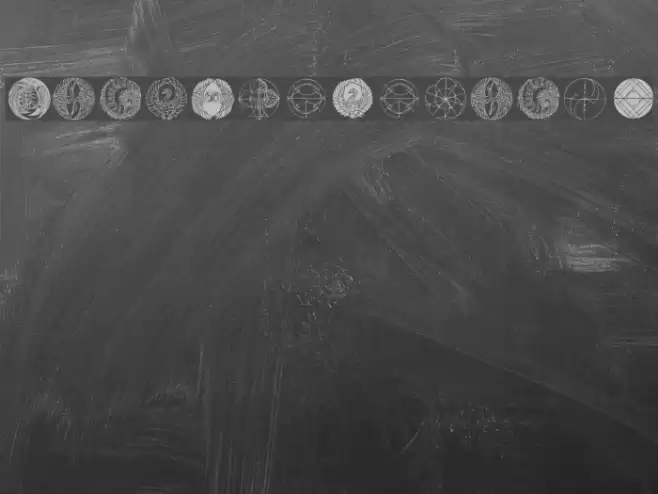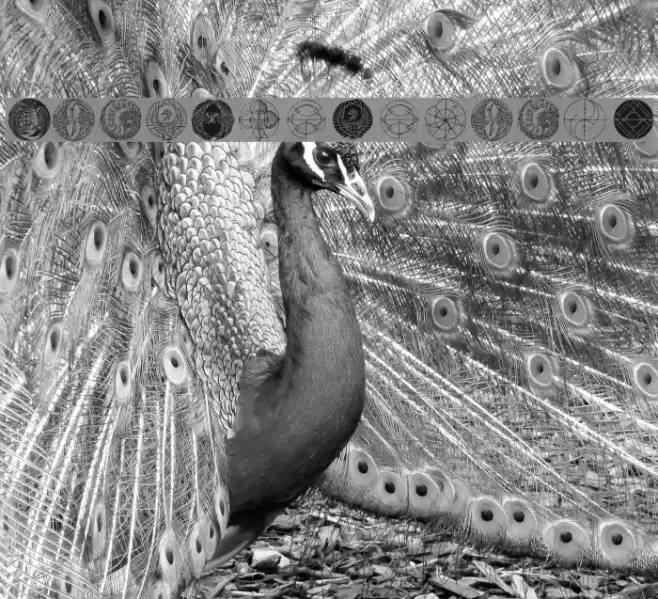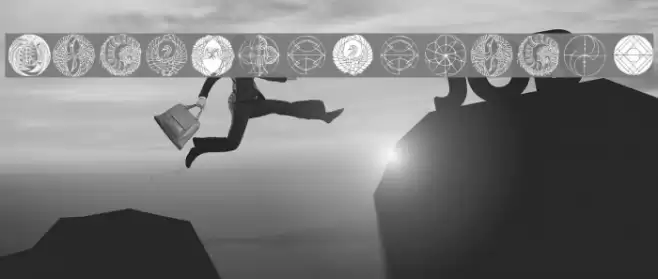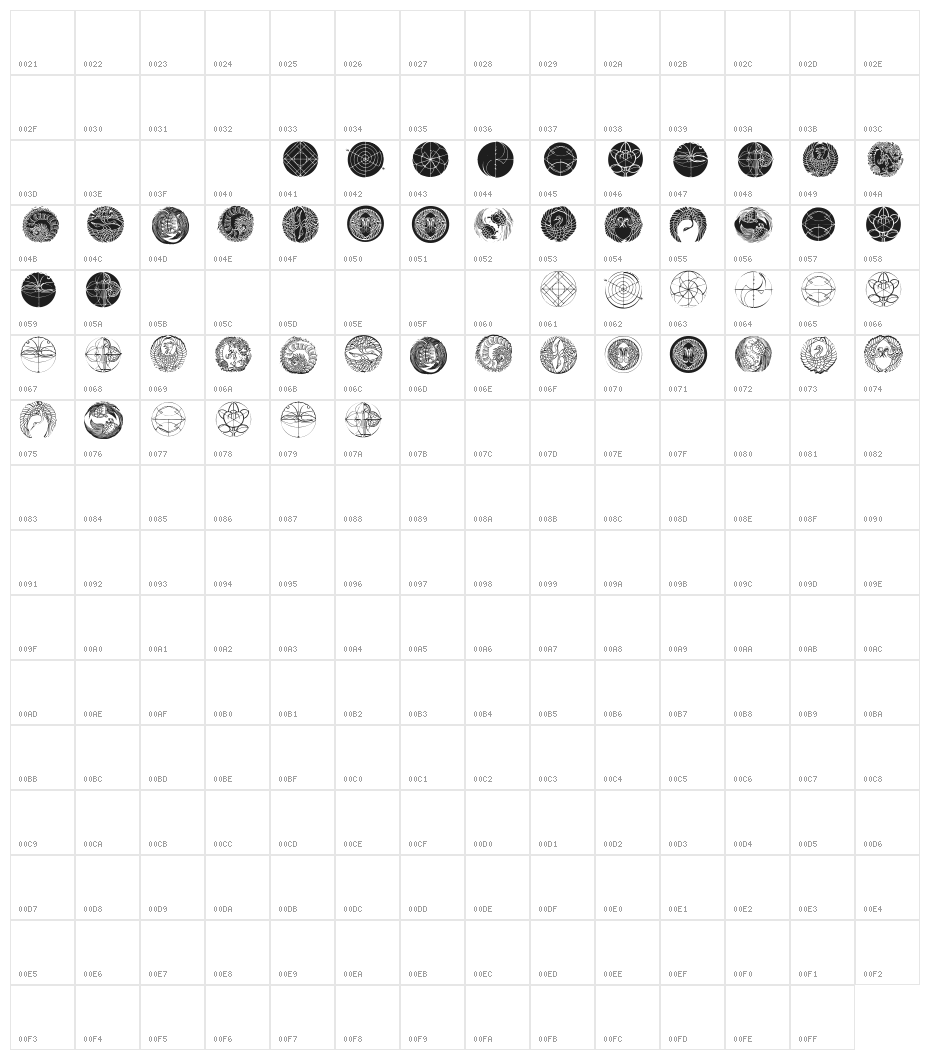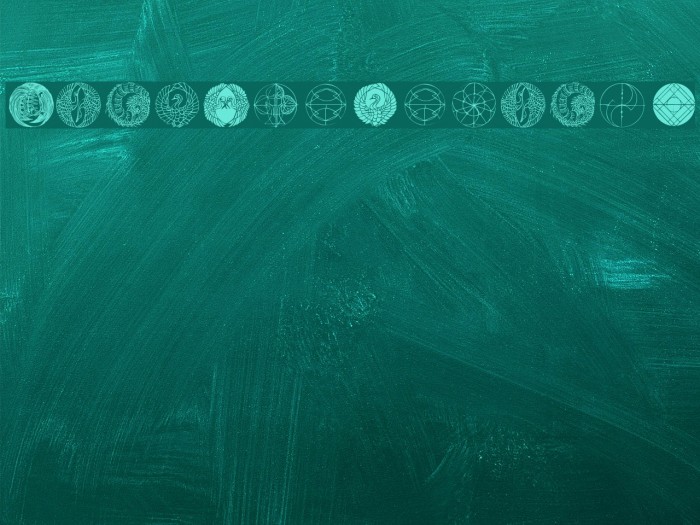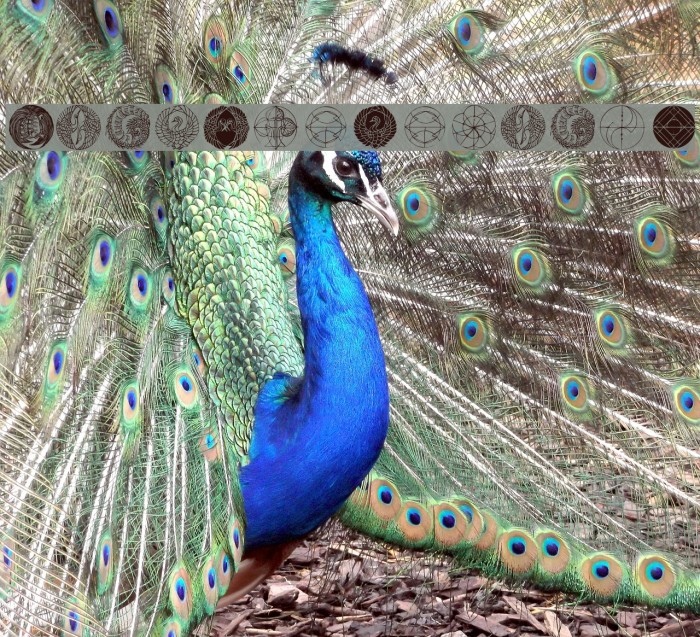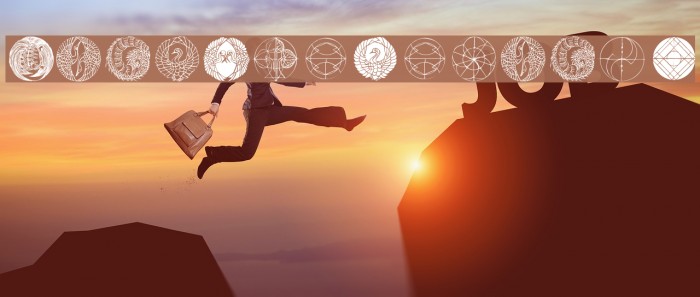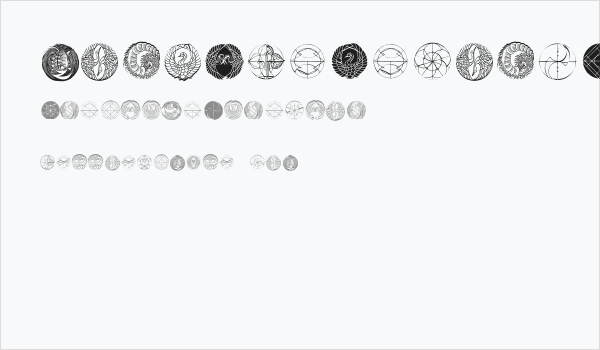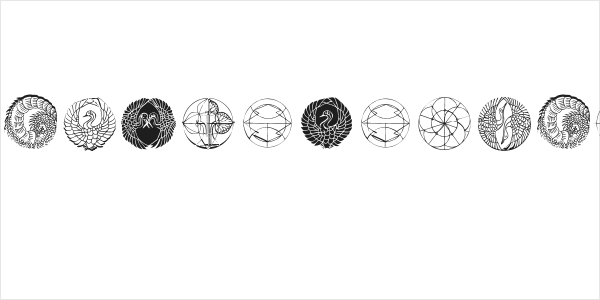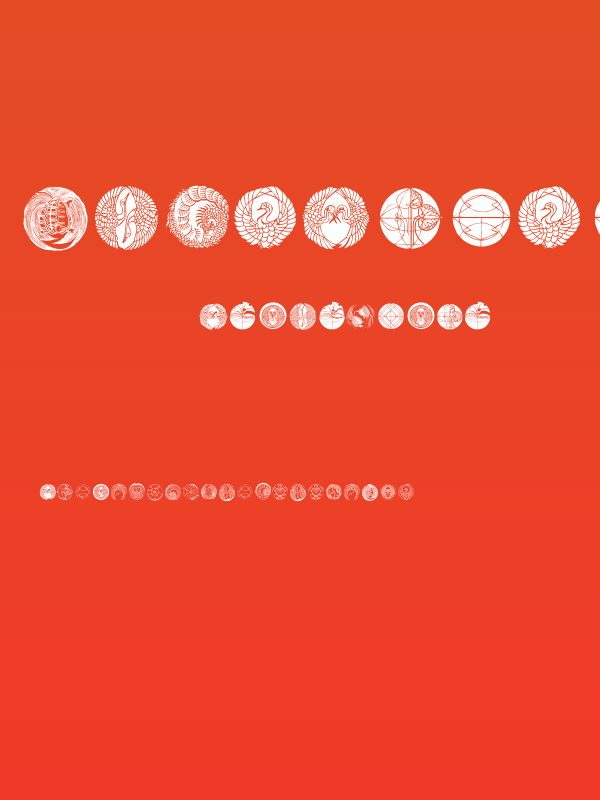
MonsTheSecondA Font
MonsTheSecondA Description
A highly decorative and abstract font composed of intricate circular designs, each character featuring unique geometric or organic linework within a circle. The glyphs blend elements of geometry and illustration, resulting in a visually complex and ornamental appearance.
Ornamental, abstract circular glyphs with intricate linework from Uncategorized fonts.
- Proposed Projects: Album covers, posters, branding for creative industries, book covers, art installations, experimental design projects.
- Overall Style: Decorative, Abstract, Artistic
- Use Case: Logos, Headlines, Posters, Artistic projects